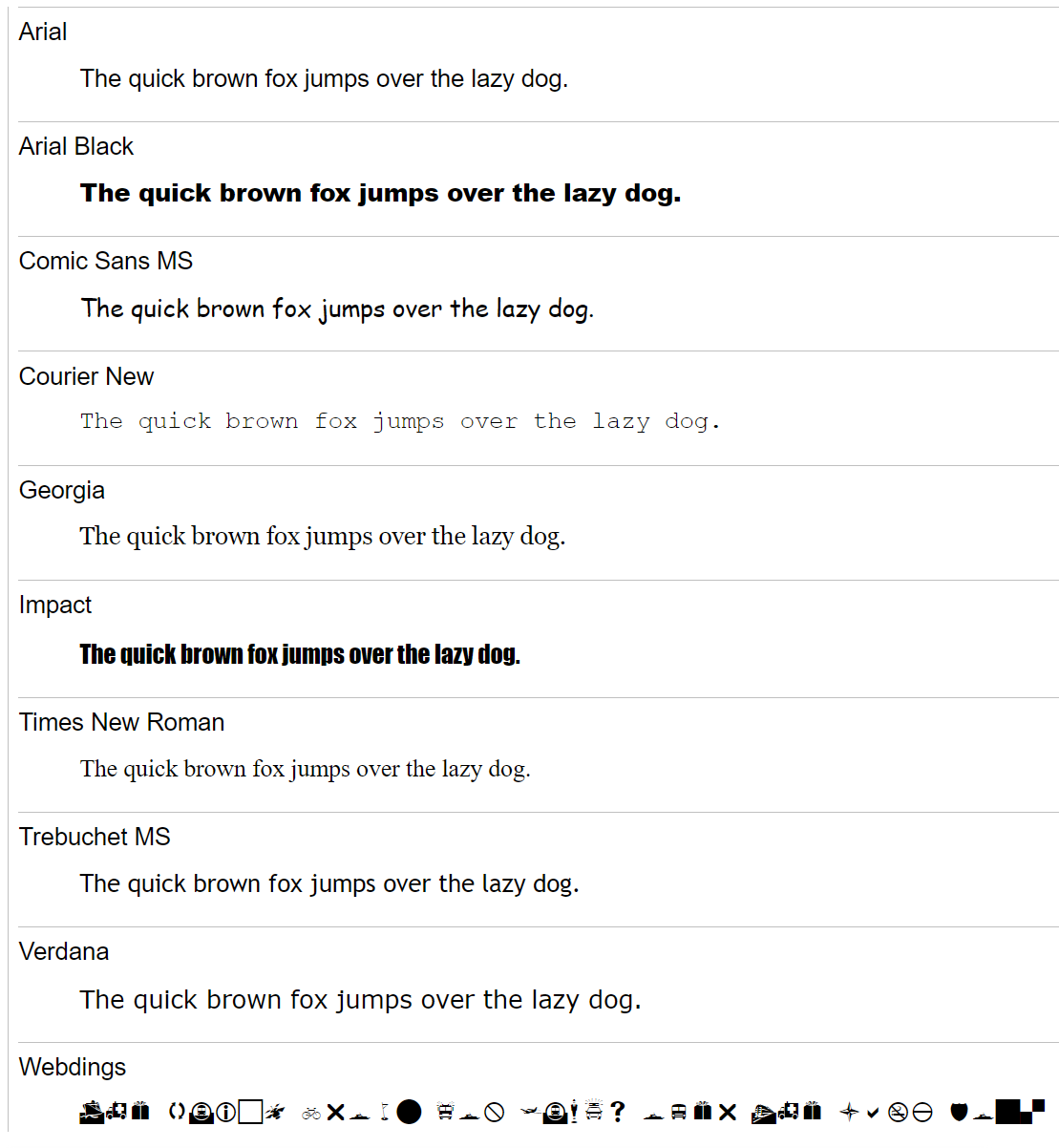
What is core web fonts
Core Web Fonts was a set of fonts distributed by Microsoft in 1996 to provide a standardized, high-quality fonts for the Web.
Most of them became practical standard for the web up, until google started Google Webfont in 2010.
Even today 2026-06-02, some of them are still considered the default in browsers. They are:
- Arial
- Times New Roman
- Courier New
and less used but still common:
- Georgia
- Verdana
list of core web fonts
All the fonts are available on Microsoft Windows and macOS as of 2026-06-02, except Andalé Mono.
- Andalé Mono
🛑 warning: Andalé Mono is no longer bundled with Microsoft Windows since year 2000. It is replaced by Lucida Console.
- Arial
- Arial Black
- Comic Sans MS
- Courier New
- Georgia
- Impact
- Times New Roman
- Trebuchet MS
- Verdana
- Webdings